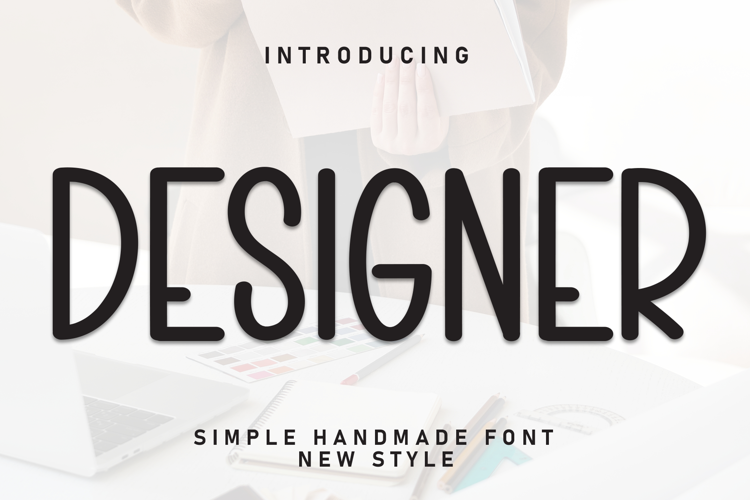
Designer Clothes
Introducing, this is our newest product, we call this product Designer Clothes,
It looks amazing with sweet touches and beautiful curves in each letter. Designer Clothes fonts are perfect for: wedding invitations, fashion magazines, logos, signatures, photography, watermarks, wall displays, social media,